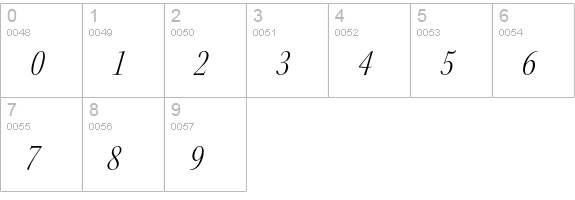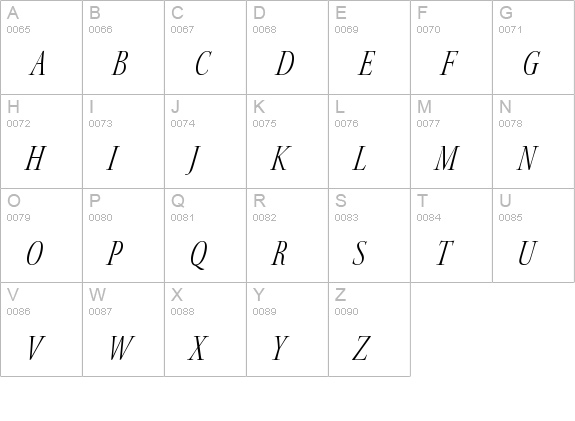
Kepler Std Light Condensed Italic Display is a refined, elegant, condensed-width, italic variant in the Kepler typeface family \xE2\x80\x94 well suited to elegant body text, refined sub-headings, and luxury branding.
Kepler Std Light Condensed Italic Display font is a modern and elegant typeface that adds a touch of sophistication to any design project. Its condensed form allows for maximum legibility and space-saving, making it perfect for headlines, captions, and other display purposes. The italic style of this font adds a sense of dynamism and movement, giving your designs a stylish and contemporary look. Whether you're creating a logo, designing a website, or formatting a brochure, Kepler Std Light Condensed Italic Display font will elevate your work to new heights. Not only does this font offer aesthetic appeal, but it also provides excellent readability. Each character is meticulously crafted to ensure clarity and ease of reading, even at smaller sizes. This makes it an ideal choice for any project where clear communication is key. As a bonus, Kepler Std Light Condensed Italic Display font is available for free download at FontsMarket.com. This means that you can easily access and utilize this high-quality typeface without any financial burden. Its availability for free makes it an even more valuable asset for designers, students, and anyone looking to enhance their creative projects. With Kepler Std Light Condensed Italic Display font, you can effortlessly create visually stunning designs that leave a lasting impression. Its sleek and refined aesthetic, combined with its versatility and readability, make it a must-have in any designer's toolkit. Don't miss out on this incredible font - download it for free at FontsMarket.com and unlock endless possibilities for your next project.